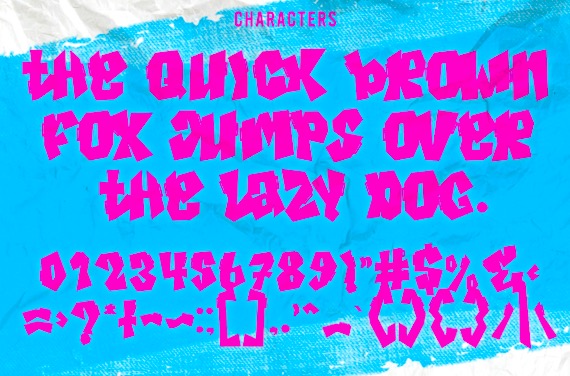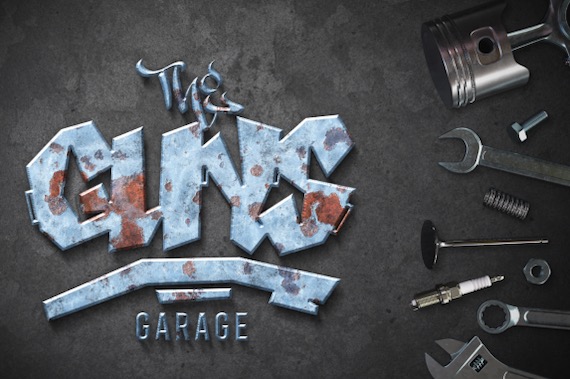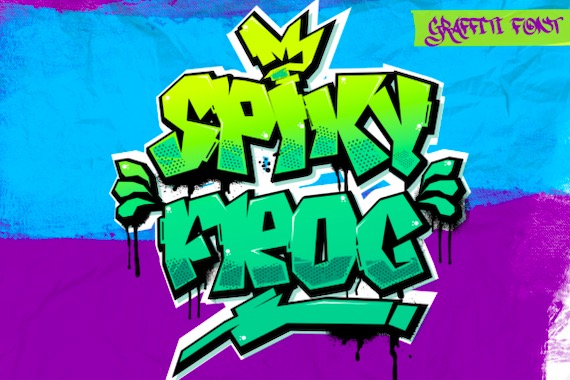
Spiky Frog is a classy delicate spectacular display font that was created and shared by Sipanji Figuree along with a graffiti style to make your project looks more stunning & versatile. This display graffiti font will elevate a wide range of design projects to the highest levels, be it branding, headings, wedding designs, invitations, signatures, logotype, wall art illustration, apparel, labels, and more!
Spiky Frog Display Font